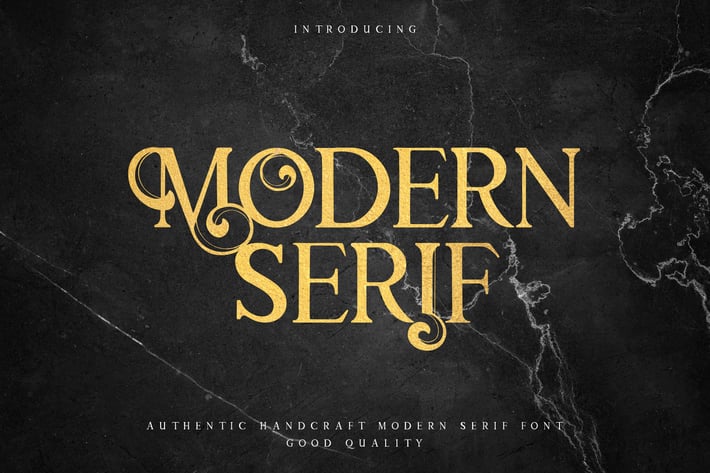
Modern Serif - Elegant Serif Font
Are you looking for a bold and elegant serif font? We can help! Try to download our Modern Serif font. The font is suitable to use for all purpose. Try to use it on Wedding invitation, summer occasion, greeting card, poster, postcard, photography, branding, editorial, event and fashion.
Basic Latin A-Z and a-z
Alternate With Tails
Multilangual Support